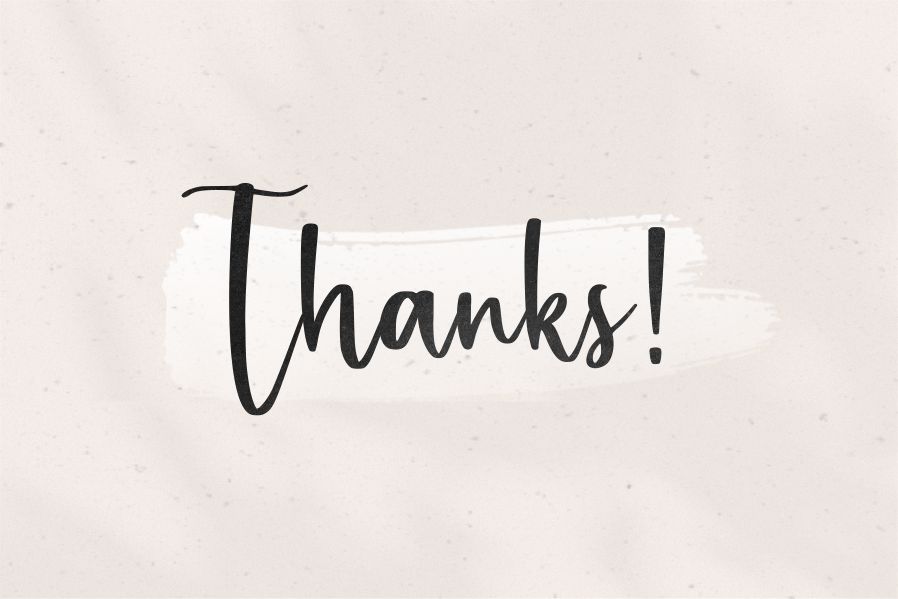
Proudly Presenting, Goldworthy A Handwritten Script Font.
Goldworthy is perfect for any titles, logo, product packaging, branding project, megazine, social media, wedding, or just used to express words above the background.
Goldworthy also come with Multi-Lingual Support.